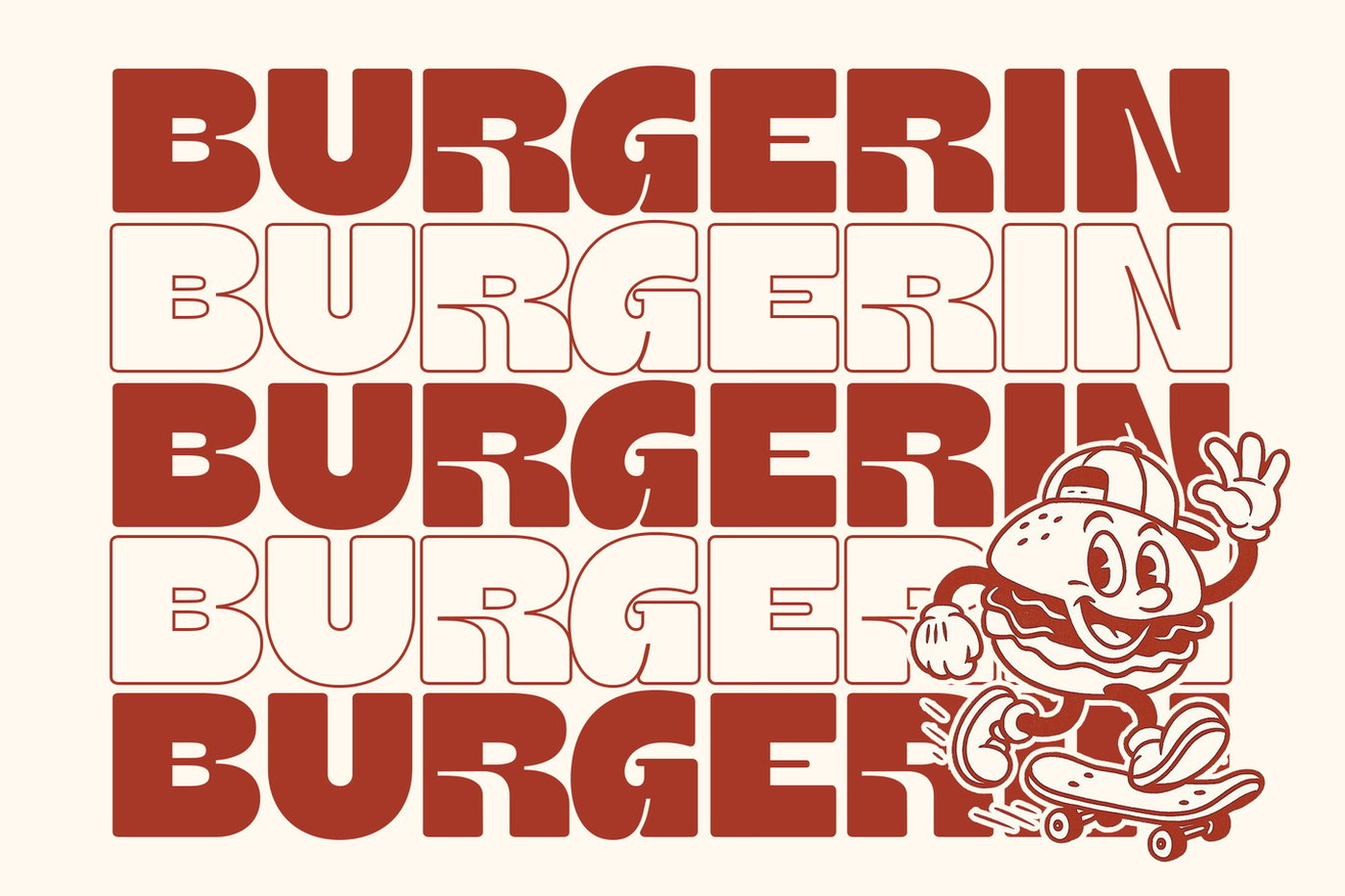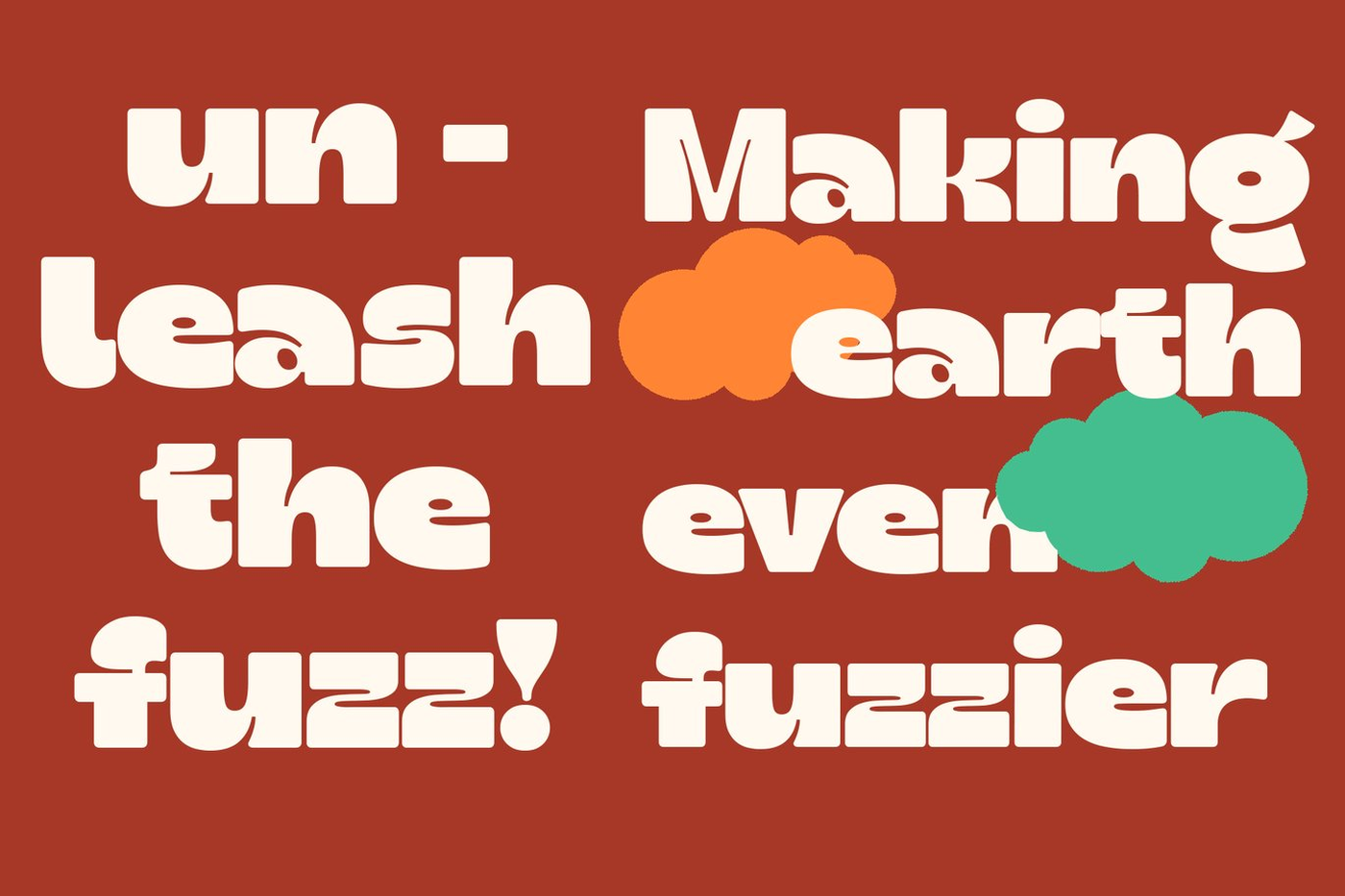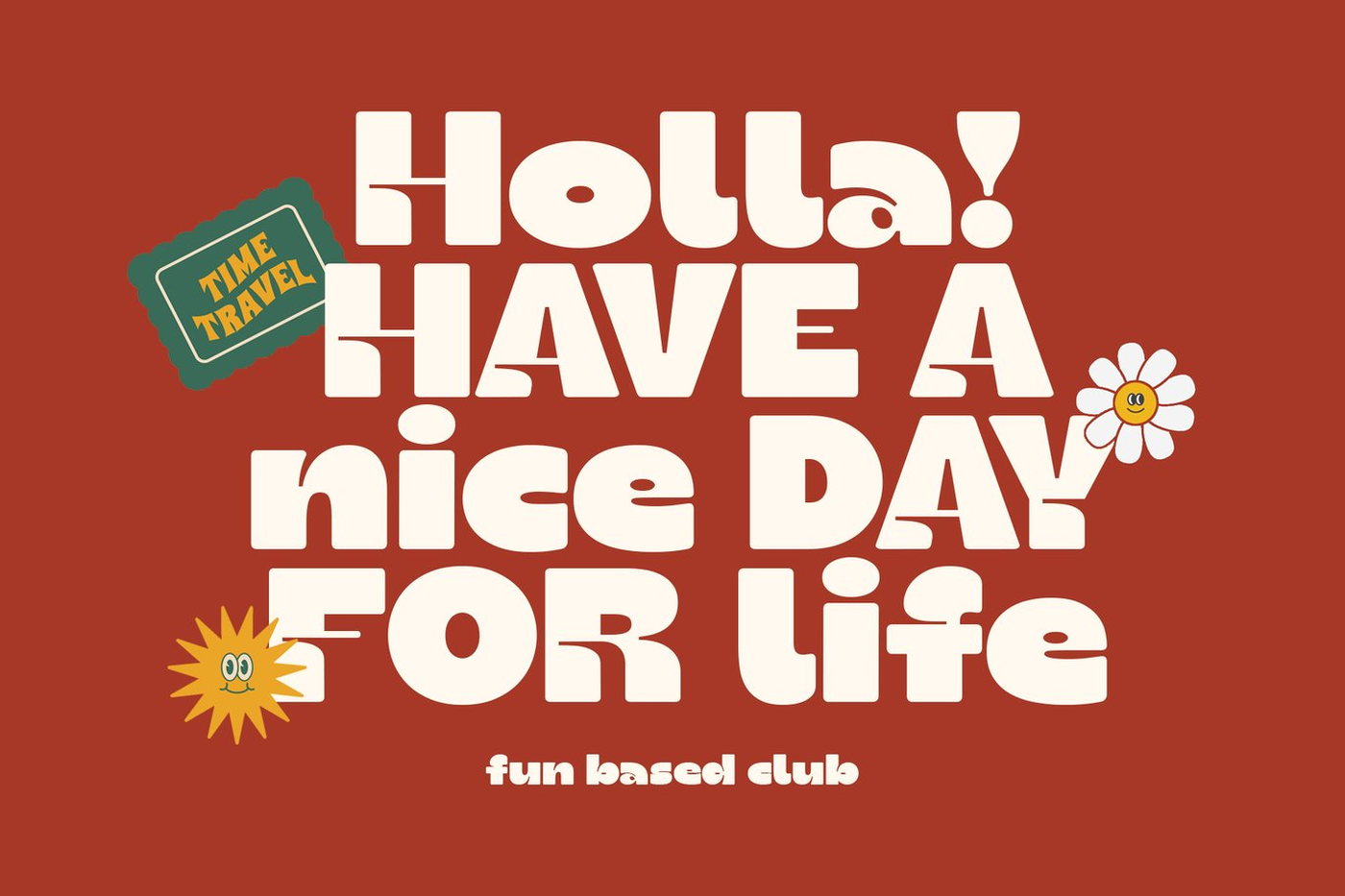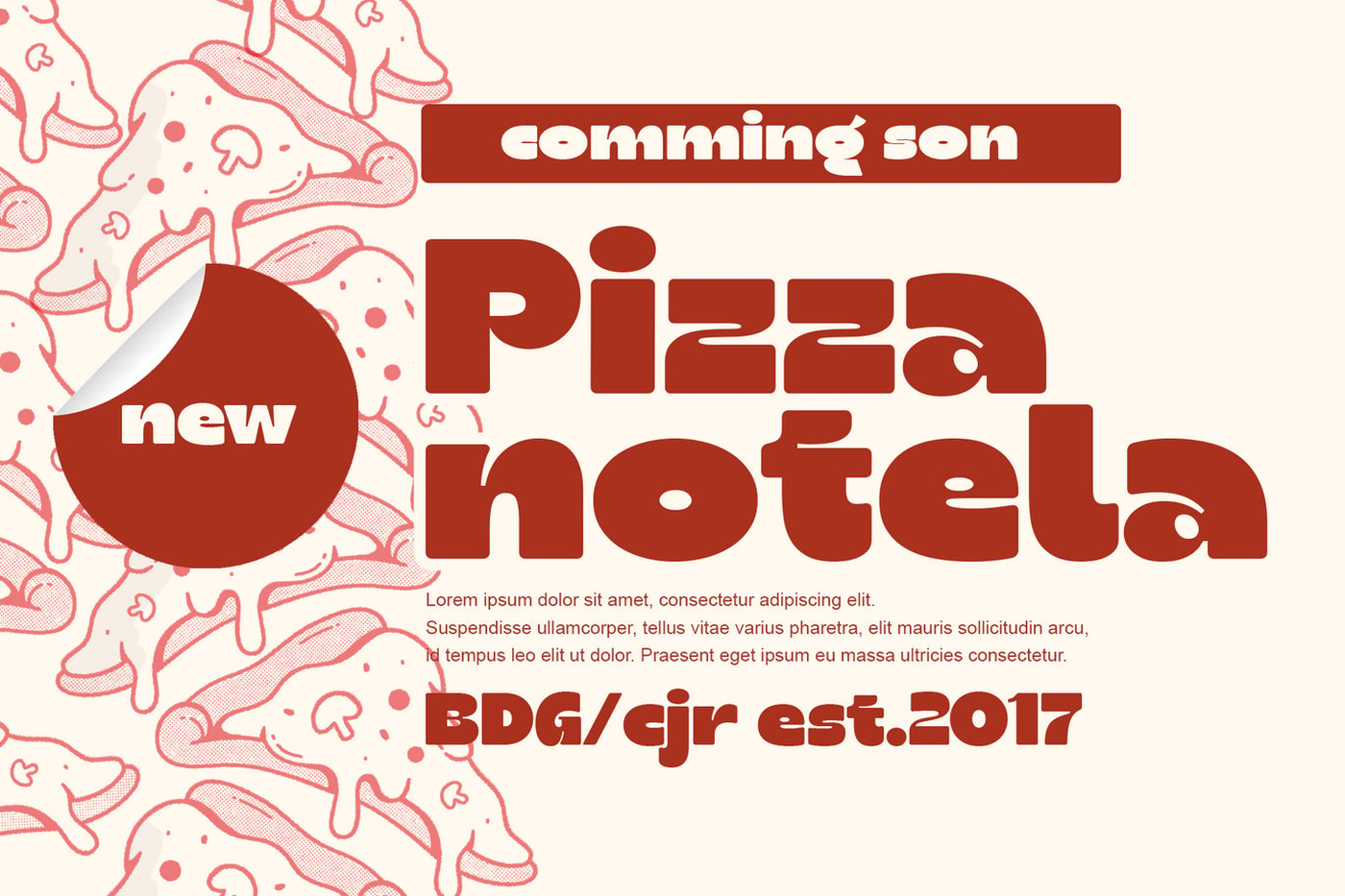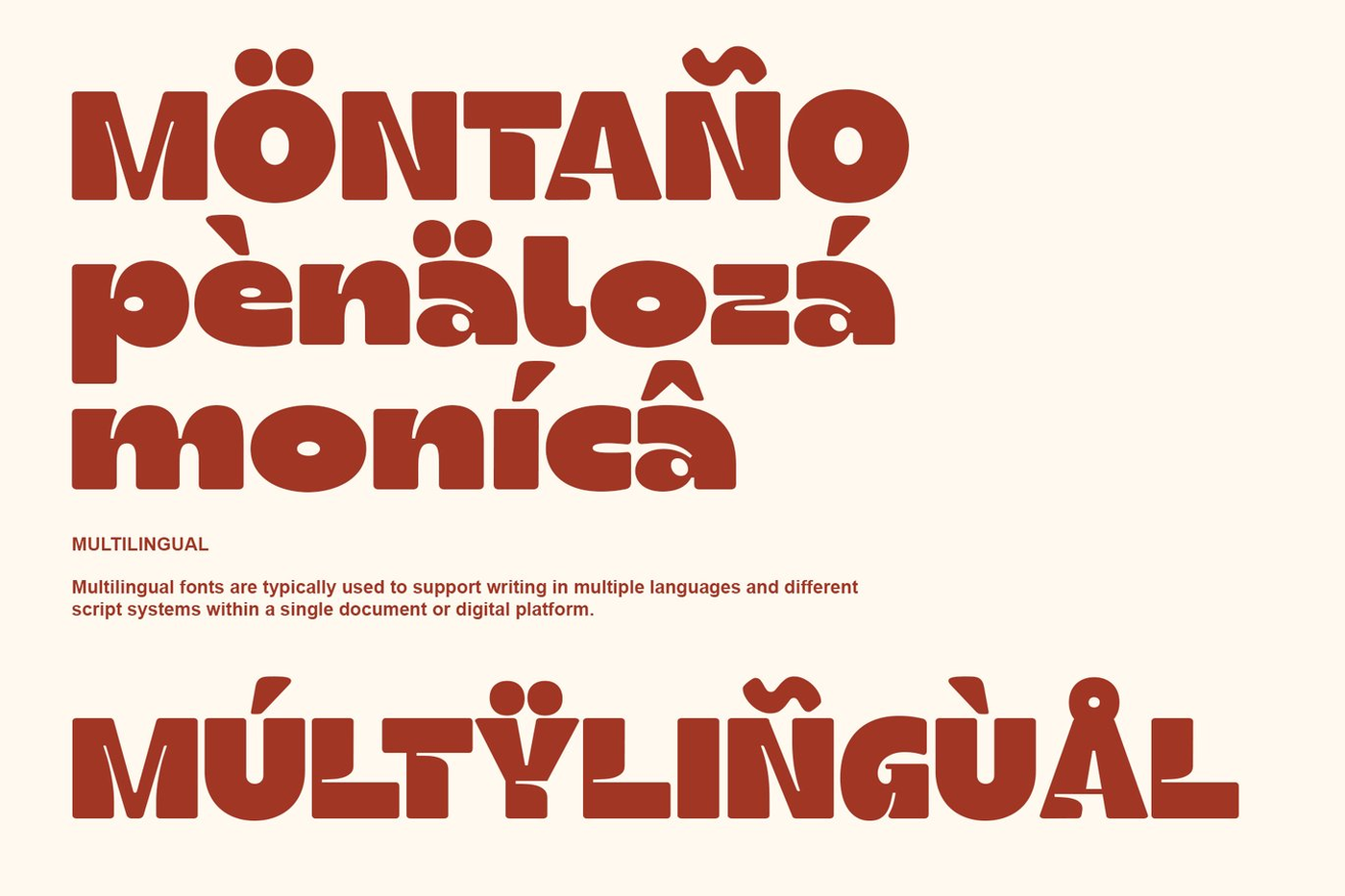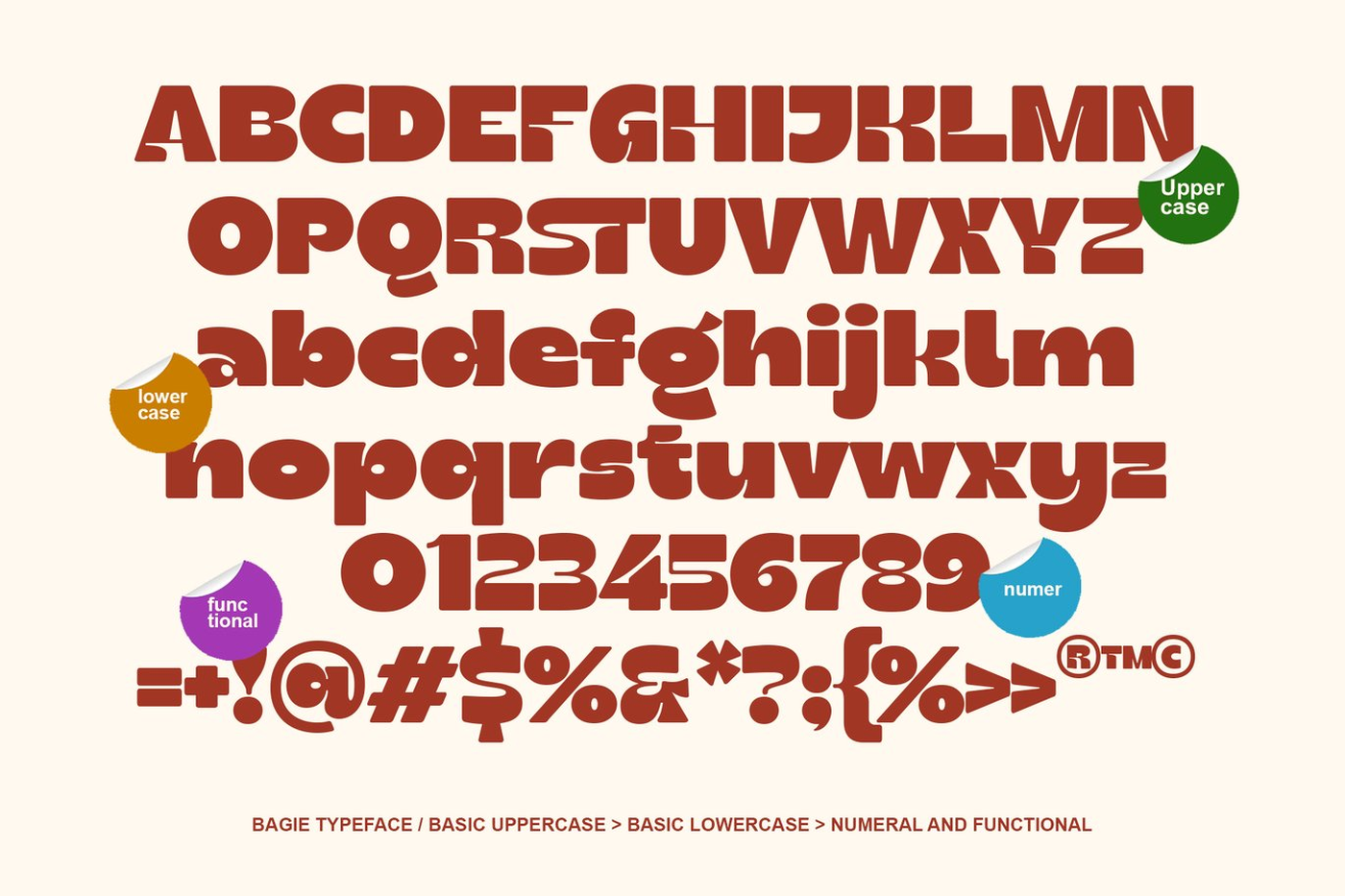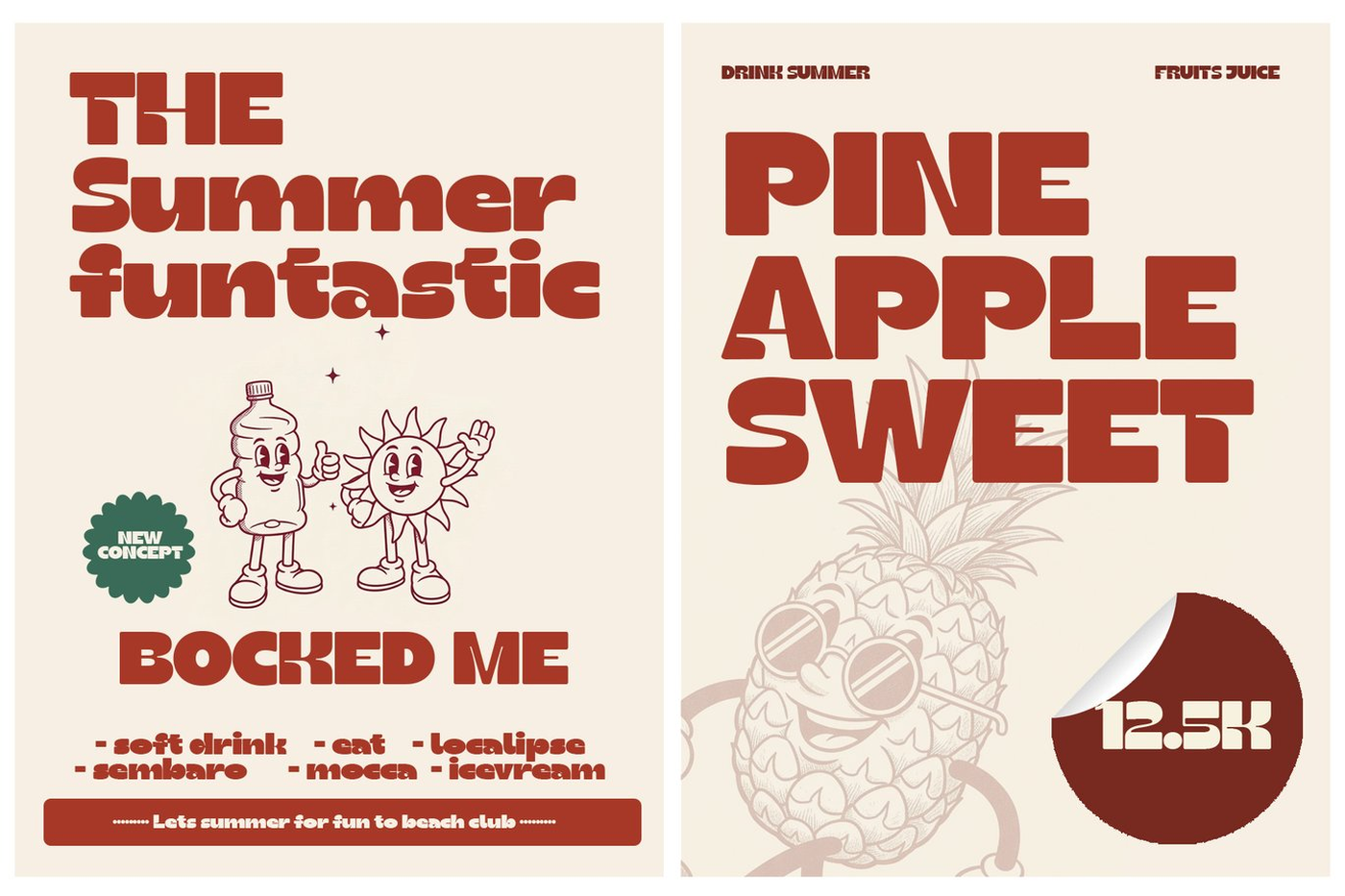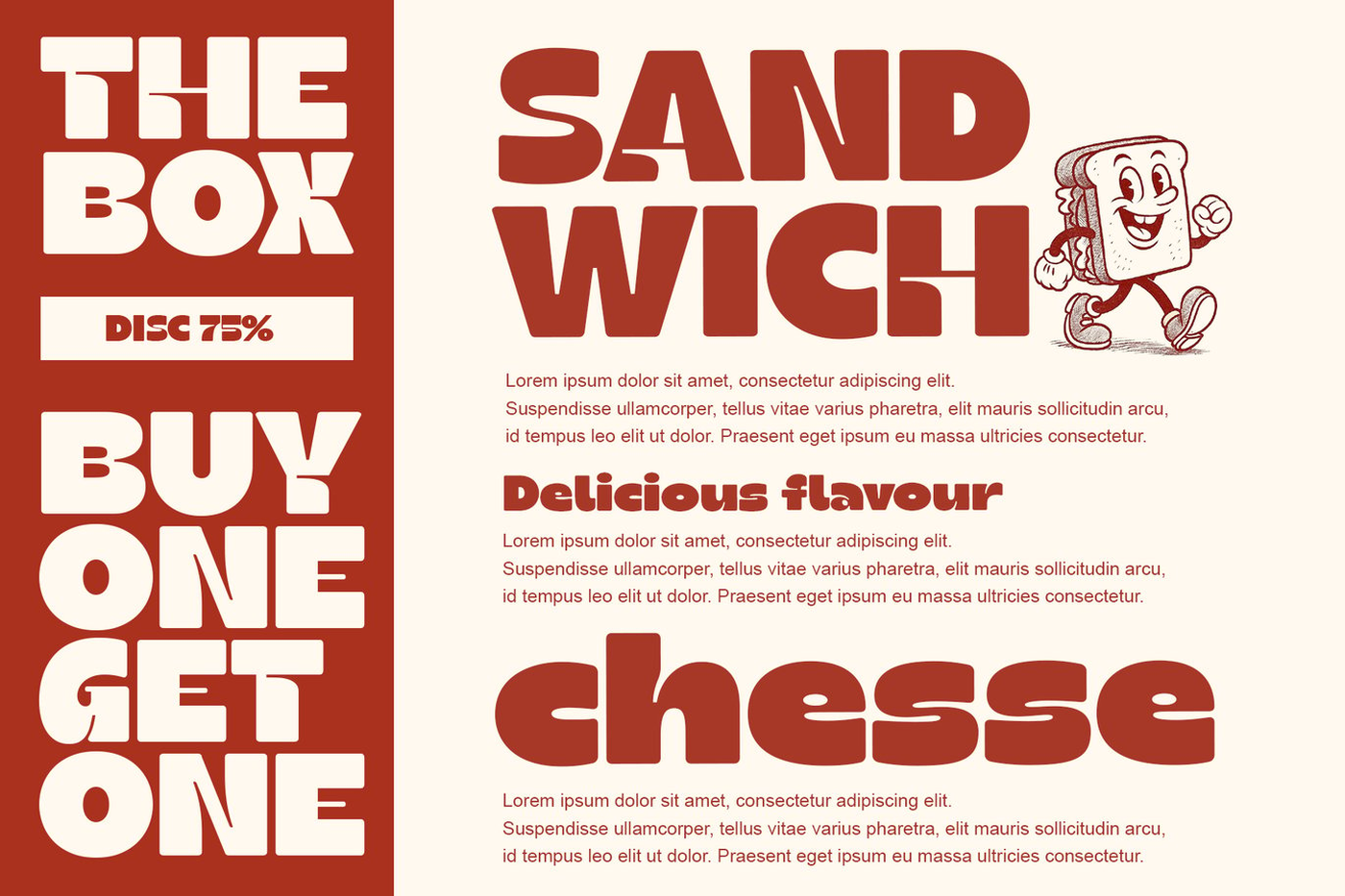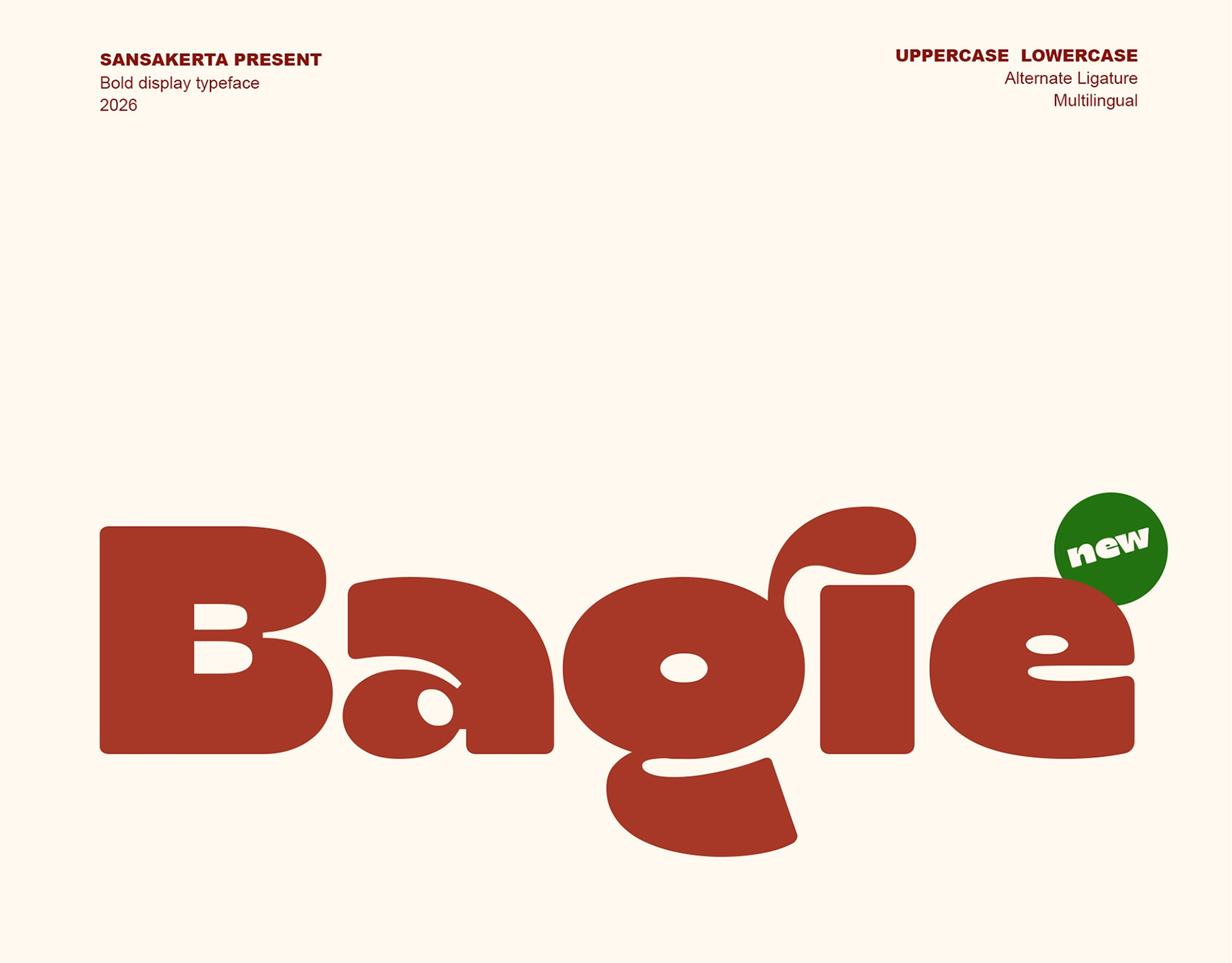
Bagie - Bold Display Font
Bagie typeface, designed for creativity and impact. Perfectly crafted for a wide array of projects, this font lends a sophisticated touch to books, magazines, logos, branding, photography, and quotes. Enhance your blog headers, posters,and advertisements with its stylish appeal.